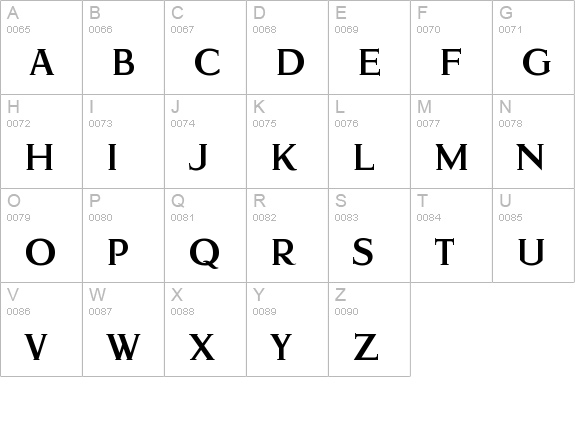
SchillerAntiquaExtraBold Font Details
SchillerAntiquaExtraBold is a majestic and powerful typeface that commands attention with its bold and striking presence. With its strong and confident letterforms, this font exudes a sense of authority and elegance, making it perfect for headlines, titles, and any design that requires a touch of grandeur. The SchillerAntiquaExtraBold font is characterized by its thick and well-defined strokes, giving it a timeless and classic look. Each letter is meticulously crafted to ensure legibility and readability, even at small sizes. Its generous spacing and balanced proportions create a harmonious rhythm, making it a pleasure to read. What makes SchillerAntiquaExtraBold even more remarkable is that it is available for free. Yes, you heard it right! This exquisite font can be freely downloaded at FontsMarket.com, allowing designers, typographers, and enthusiasts alike to access its beauty and versatility without any cost. Whether you're working on a print project, website design, or any creative endeavor, SchillerAntiquaExtraBold will elevate your work to new heights. Its bold and distinct personality adds a touch of sophistication and professionalism to any design, making it an excellent choice for branding, logos, and corporate materials. With SchillerAntiquaExtraBold, you have the freedom to explore and experiment, creating stunning visual compositions that leave a lasting impression. Its versatility allows it to adapt to various design styles and contexts, whether it be a modern and sleek aesthetic or a more traditional and timeless approach. Download SchillerAntiquaExtraBold for free at FontsMarket.com and unlock the potential of this extraordinary typeface. Experience the beauty and power it brings to your designs, and let it be the cornerstone of your typographic repertoire. Don't miss out on this incredible opportunity to enhance your creative projects with SchillerAntiquaExtraBold – the font that combines elegance, strength, and freedom.